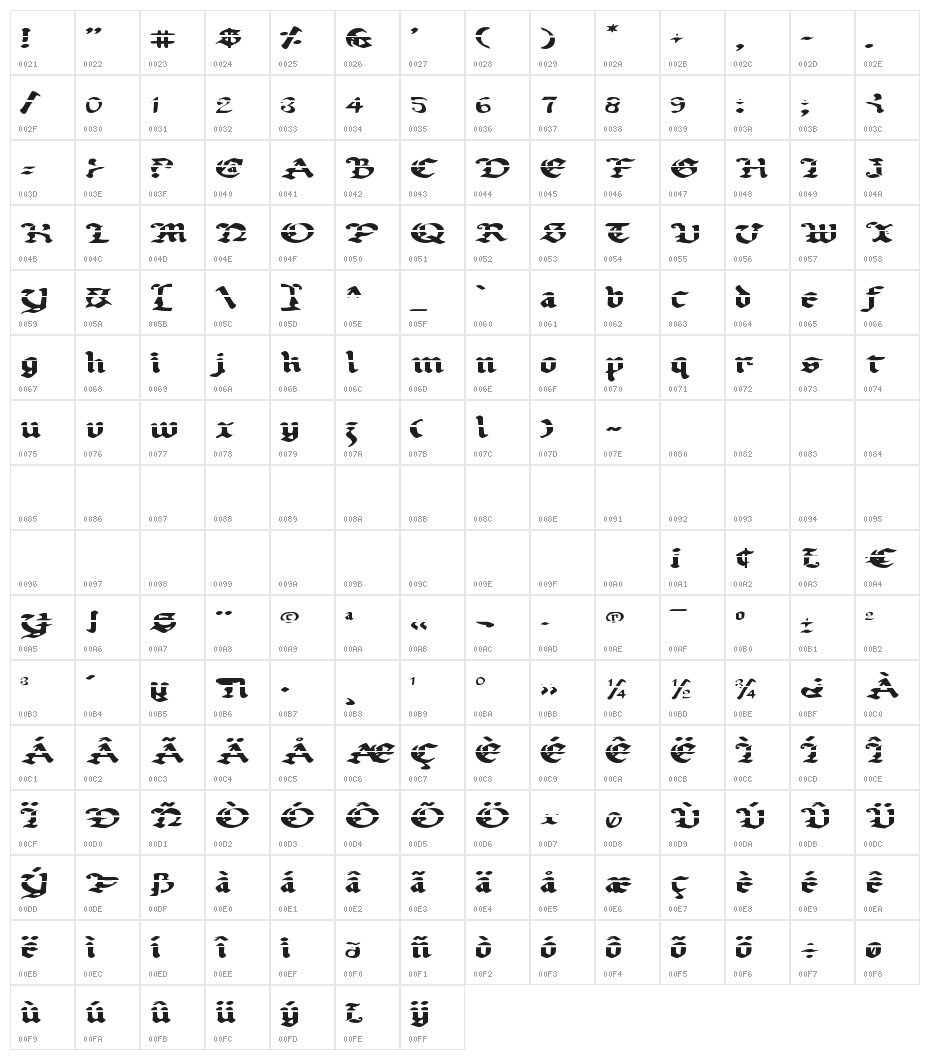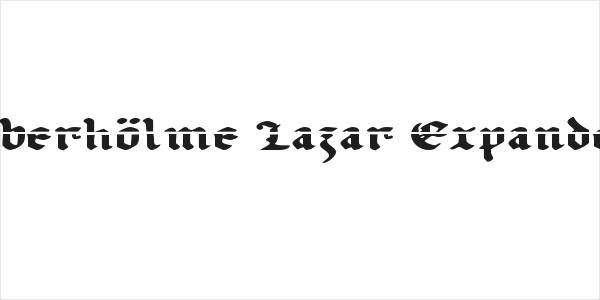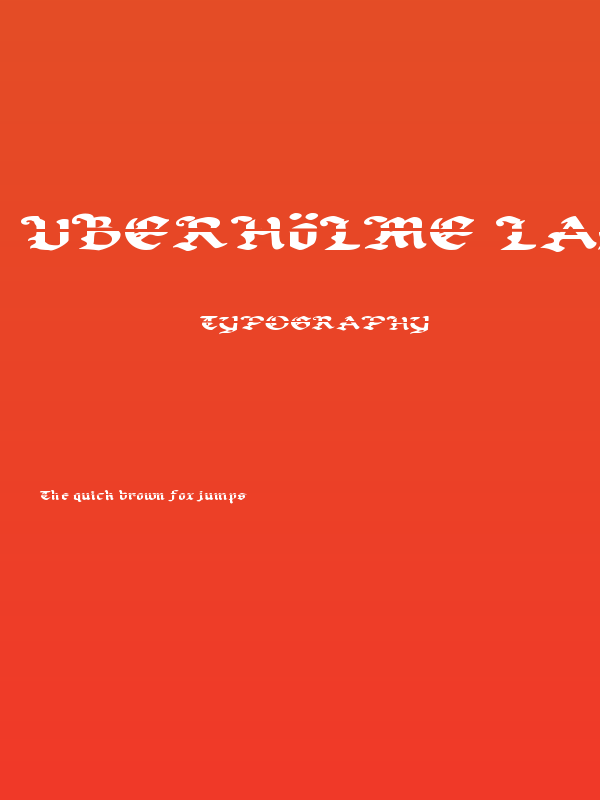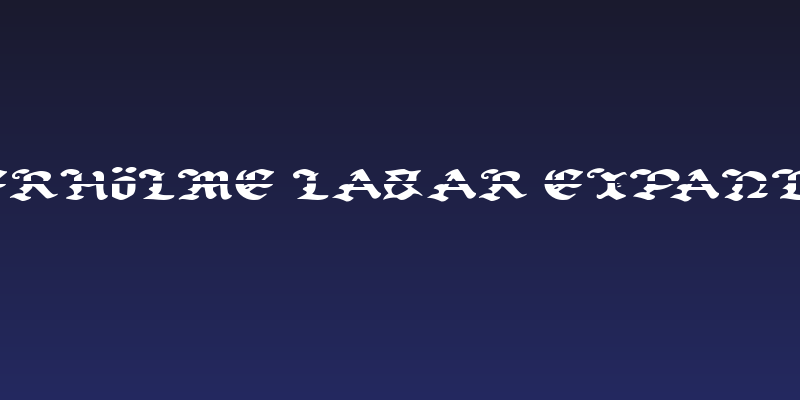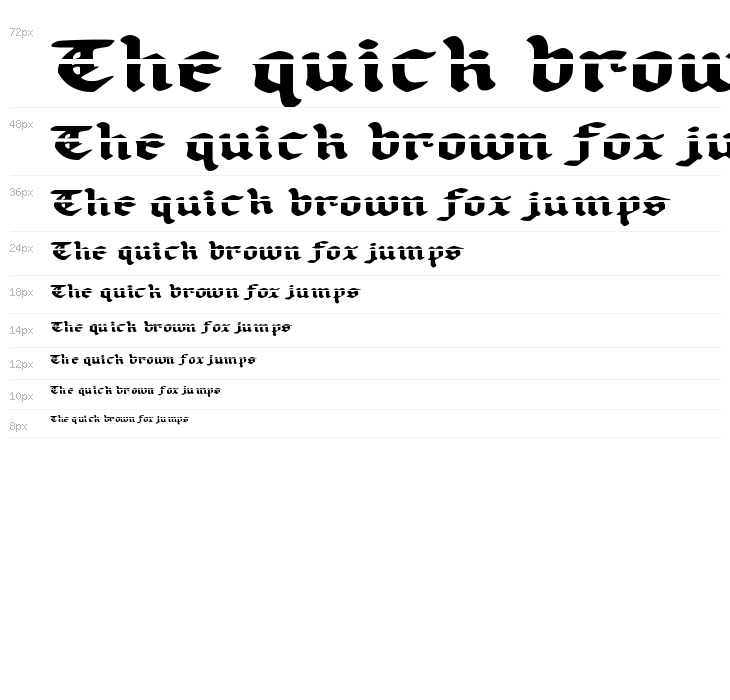
Uberhölme Lazar Expanded Font
Uberhölme Lazar Expanded Description
This font features a bold and dramatic style, characterized by its sharp, angular edges and intricate detailing reminiscent of traditional blackletter typefaces. The uppercase letters exhibit a strong presence with their wide, expansive forms, while the lowercase letters maintain a consistent style that complements the overall aesthetic. The numerals are equally bold, ensuring they stand out in any design. Special characters are uniquely styled, adding to the font's decorative appeal. This typeface is ideal for projects that require a historical or gothic touch, offering a striking visual impact.